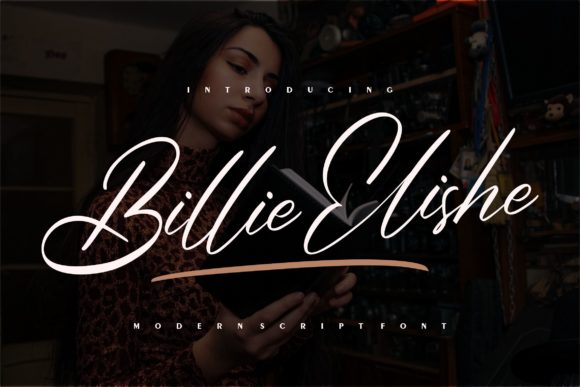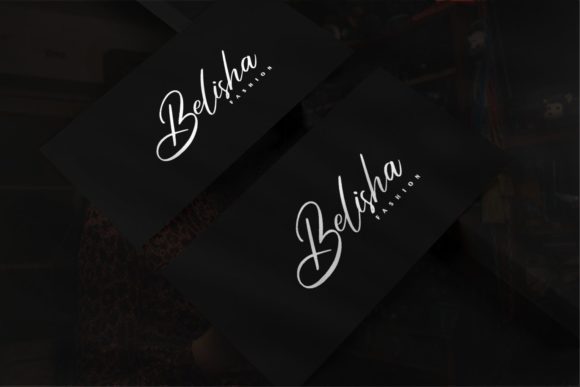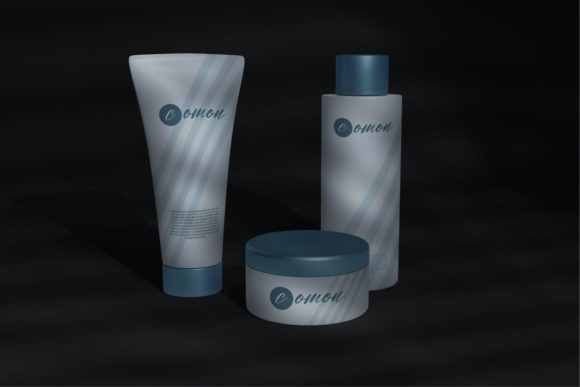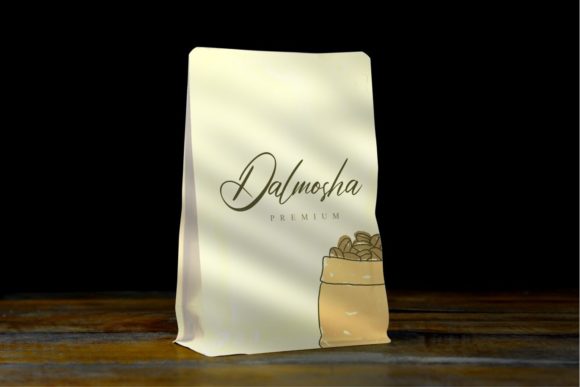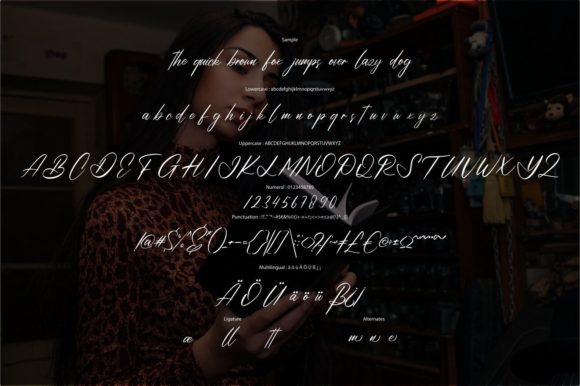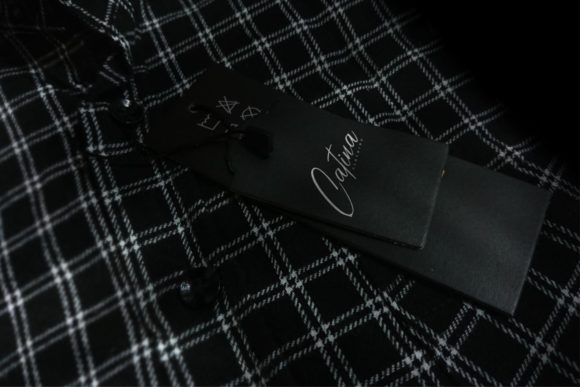
Billie Elishe Font
About Billie Elishe Font
“Billie Elishe” is a dazzling script font that adds a touch of glamour and elegance to your creative projects. Regardless of the topic or theme, this font proves to be a valuable asset for your font library, possessing the potential to enhance any creation with its dazzling and stylish appearance.
The script style of “Billie Elishe” exudes sophistication, making it suitable for a wide range of applications. Whether you’re working on invitations, branding materials, posters, or any other design project, this font’s dazzling nature ensures that your creations stand out with flair.
With “Billie Elishe,” you have a versatile and stylish tool at your disposal. Its ability to adapt to different design contexts makes it a reliable choice for designers seeking a font that effortlessly adds a touch of glamour and elegance to their projects.
In summary, “Billie Elishe” is more than just a font; it’s a dazzling and stylish addition to your creative toolkit. Its versatility and glamorous appearance make it a wonderful asset, capable of enhancing the visual appeal of a wide variety of designs. Embrace the sophistication of “Billie Elishe” and watch as it elevates your creative endeavors.